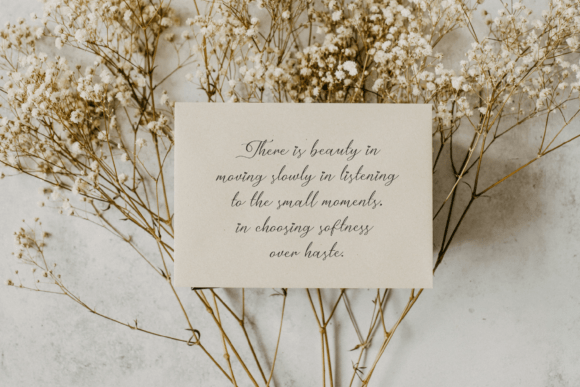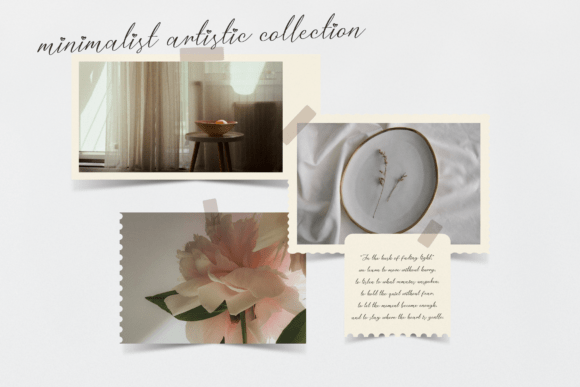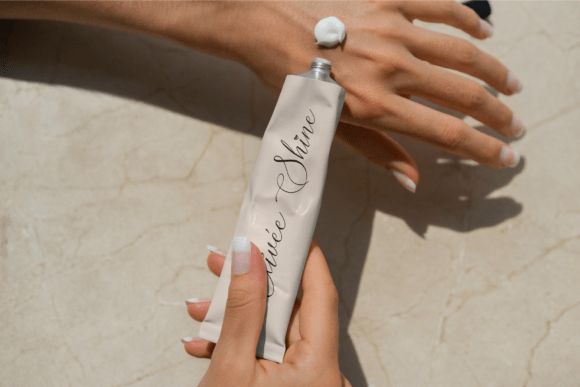
Introduction to Mielssai Font
Have you ever stumbled upon a font that makes your design project feel like a dream come true? For many designers, that moment of serendipity is what sets their creative juices flowing. For us, it was discovering the Mielssai Font – a breathtakingly elegant script font that embodies the essence of “beauty chic.”
With its sophisticated calligraphy and playful, modern twist, Mielssai Font is a design resource that offers the perfect blend of high quality and style. Its charming heart-shaped tittles and flowing, rhythmic strokes create a natural, hand-lettered feel that’s perfect for high-end branding. Whether you’re working on a luxury skincare packaging design or a romantic wedding invitation, Mielssai Font is a valuable addition to your design arsenal.
What makes Mielssai Font truly special is its ability to add a touch of personality to any design project. With transparent background support and multilingual capabilities, you can rest assured that your creative project will shine with professional polish.
Key Features of Mielssai Font
- High-quality, elegant design perfect for creative projects and design resources.
- Designed to be versatile, suitable for use in logos, typography, and other graphic design elements.
- Perfect for designers and artists looking for a unique and high-quality design resource for their creative projects.
Honest Review: Mielssai Font
As a designer, I’m always on the lookout for high-quality design resources to elevate my creative projects. Recently, I had the chance to try out the Mielssai Font, and I must say, it’s a great addition to any designer’s toolkit.
What works well with the Mielssai Font is its modern and elegant design aesthetic, making it perfect for a variety of projects, from branding to digital products. The font’s transparent background also allows for seamless integration with other design elements, giving your projects a polished look. Additionally, the font is available for free download, making it an excellent resource for designers on a budget.
- ✨ Modern and elegant design aesthetic
- ✨ Transparent background for seamless integration
However, I did encounter some limitations with the Mielssai Font. The font’s limited character set and lack of bold weights may not be suitable for projects requiring extensive typography. Additionally, the font’s compatibility with certain software may be limited, so it’s essential to test it before use.
Overall, I’m impressed with the Mielssai Font’s potential to enhance creative projects. While it may have some limitations, its high quality and transparent background make it a valuable design resource for designers looking to elevate their work.
For getting the most out of the Mielssai Font, experiment with different font sizes, colors, and styles to create unique and eye-catching designs. Common use cases include logo design, branding, and marketing materials. The transparent background feature makes it ideal for overlaying text on images or graphics.